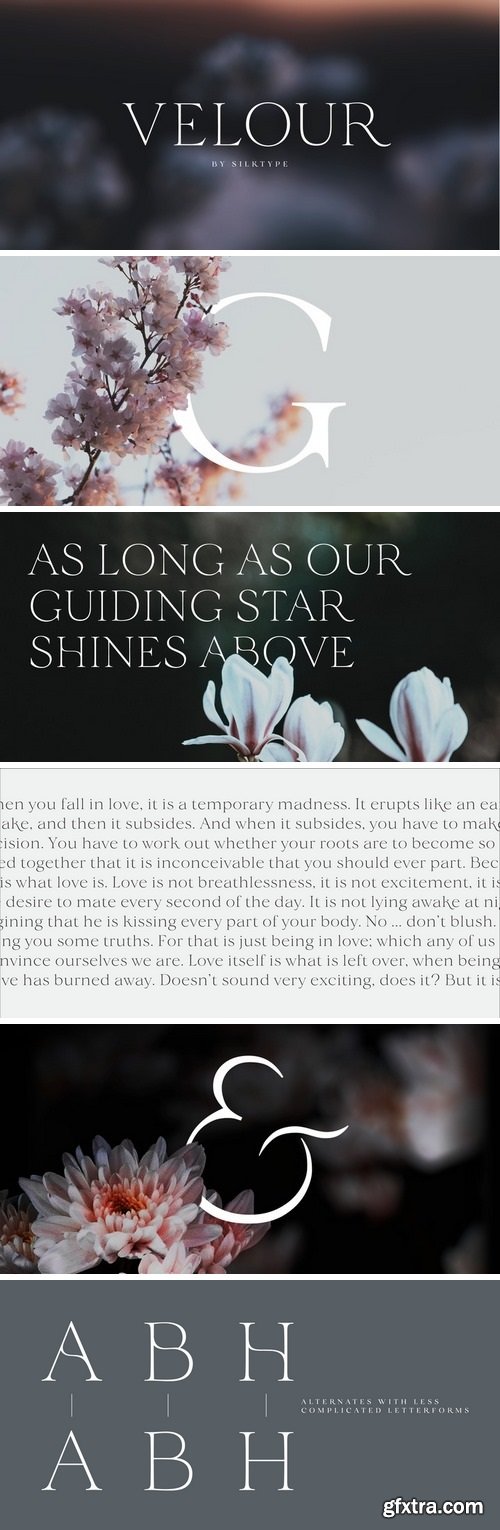
Velour Font Family - 6 Fonts
Velour is an elegant display typeface, with thin, bracketed serifs. The typeface’s main features are the curved crossbar on ‘A’ and ‘H’, the long, sophisticated legs of ‘K’ and ‘R’ including an alternative ‘k’ automatically substituted in appropriate places, providing a consistent flow of text and a romantic feel.